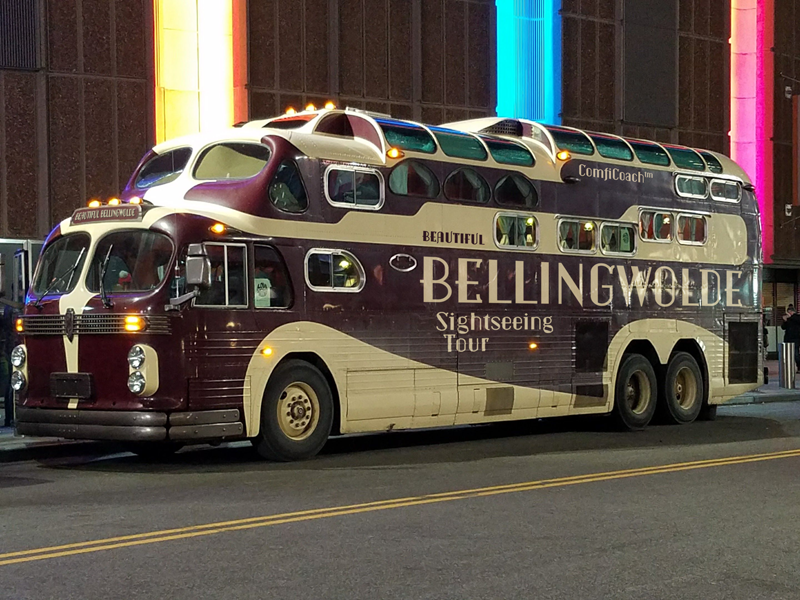
I know a lot of people in the food business like this kind of Art Deco 1930's stuff, I don't exactly know why. But I like making a pastiche of that 30's style, so why not? I started out with the thin version, about a month ago, then made three other fonts and had to return to this one, which was a bit tedious. But I finished it anyway. I'm sure there are people who can use it. For me it's a bit meh. If you use this font in your designs, please let me know and show me what you've made. I like that a lot; it's the main reason I make free fonts. And if you feel inclined to spend a little (or a lot of) money to support your indie font designer through Paypal: tupwanders@tupwanders.nl - It'll do wonders for your karma, trust me. |